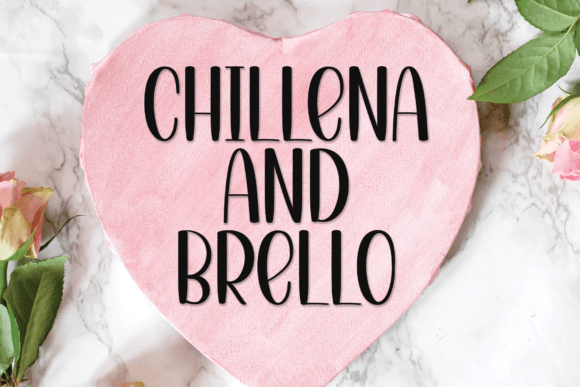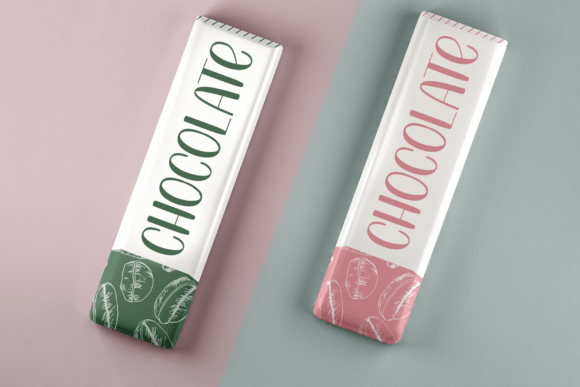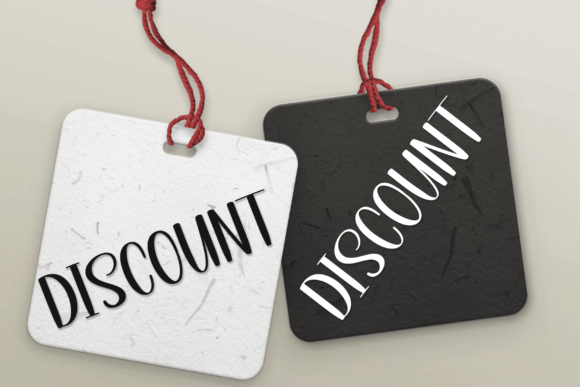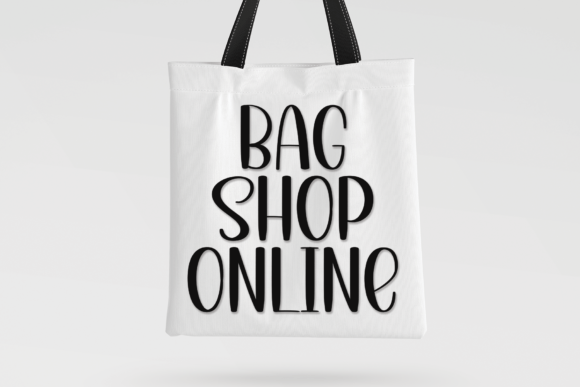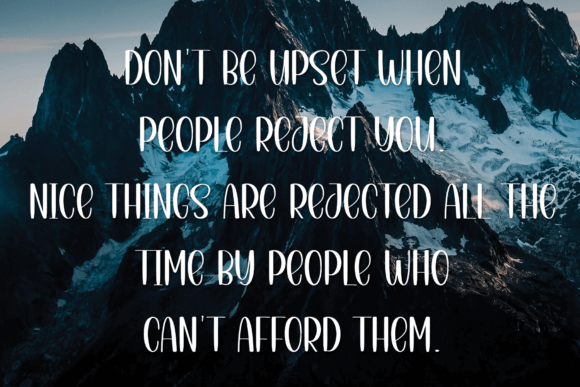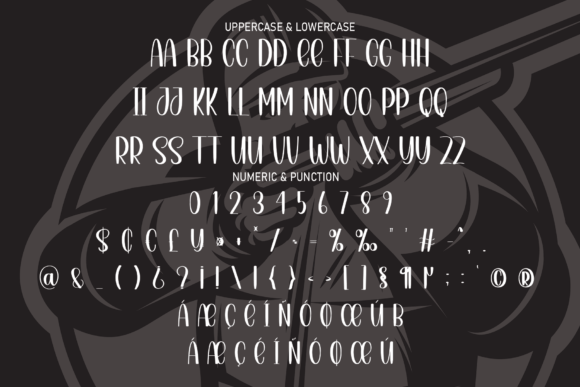
Unleash Your Creativity with Black Hunter Font
Are you a designer, craftsperson, or DIY enthusiast looking for a font that can elevate your creative projects to new heights? Look no further than the Black Hunter Font! This incredibly cool display font is designed to bring a modern yet whimsical touch to your designs, making it the perfect choice for a wide range of applications.
What Makes Black Hunter Font So Special?
Black Hunter Font is more than just a font – it’s an experience. With its unique blend of modern and playful elements, this font has the power to transform your designs and take them to the next level. Whether you’re working on a logo, a poster, a website, or any other creative project, Black Hunter Font is sure to make a statement.
Key Features of Black Hunter Font
- Modern yet Whimsical Style: Black Hunter Font boasts a fresh and contemporary design that’s perfect for projects that require a touch of playfulness.
- Display Font: Designed specifically for display purposes, this font is ideal for headlines, titles, and other attention-grabbing elements.
- High Versatility: Black Hunter Font can be used in a wide range of applications, from digital designs to print materials.
- Easily Readable: Despite its bold and playful design, Black Hunter Font remains highly legible, making it perfect for use in various contexts.
Who Can Benefit from Black Hunter Font?
Black Hunter Font is a versatile design asset that can benefit a wide range of professionals and hobbyists, including:
- Graphic Designers: Add a touch of modern whimsy to your logos, posters, brochures, and other graphic design projects.
- Web Designers: Use Black Hunter Font to create eye-catching headings and titles for your websites and landing pages.
- Crafters and DIY Enthusiasts: Elevate your crafting and DIY projects with a professional-looking font that’s perfect for titles, labels, and more.
- Marketing and Advertising Professionals: Create attention-grabbing ads and promotional materials with Black Hunter Font’s bold and playful design.
Tips for Using Black Hunter Font Effectively
- Pair with Complementary Fonts: Combine Black Hunter Font with simpler fonts to create visual interest and hierarchy in your designs.
- Experiment with Colors and Textures: Take advantage of Black Hunter Font’s bold design by experimenting with different colors and textures.
- Use for Emphasis: Use Black Hunter Font to draw attention to key messages or calls-to-action in your designs.